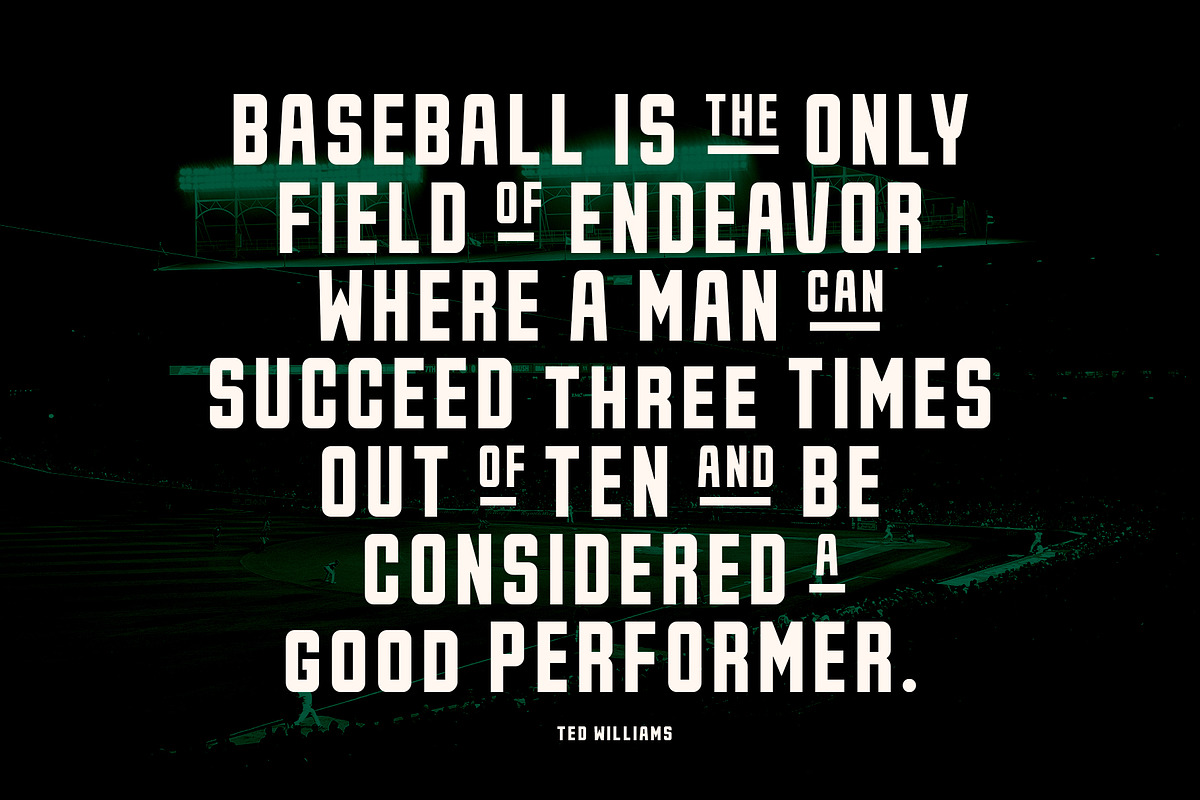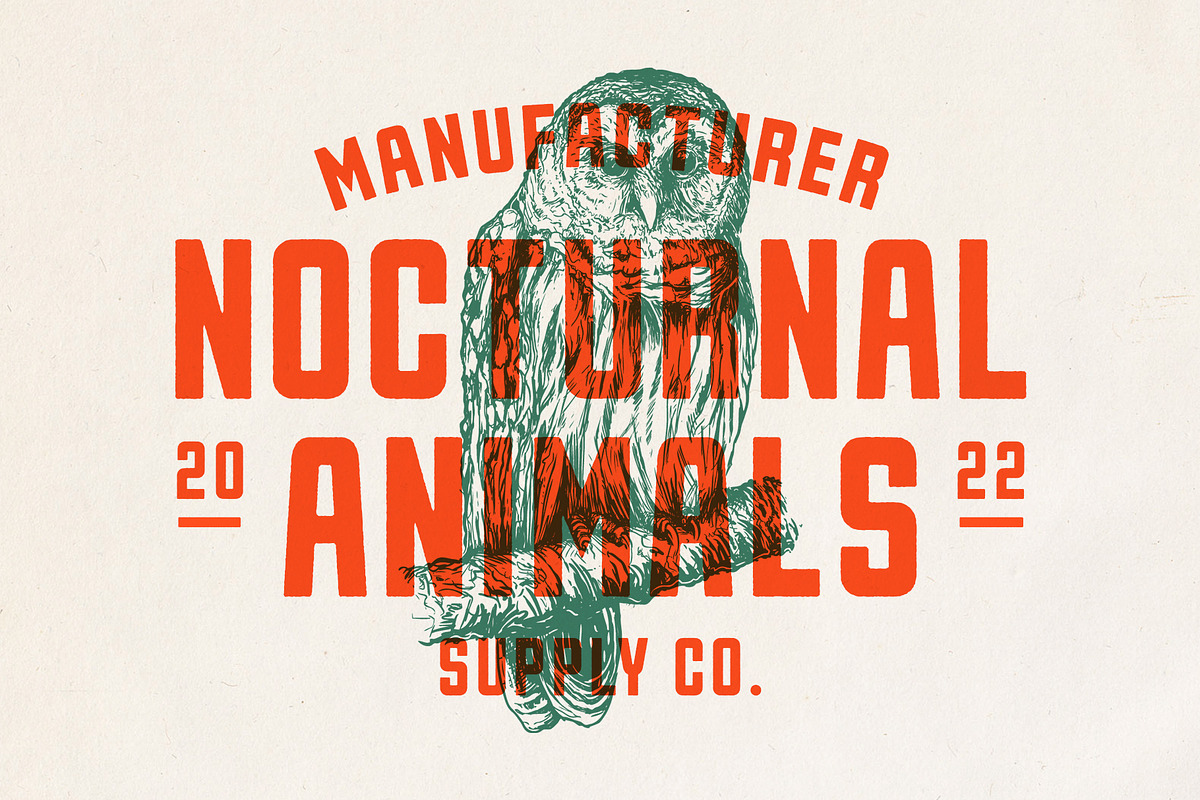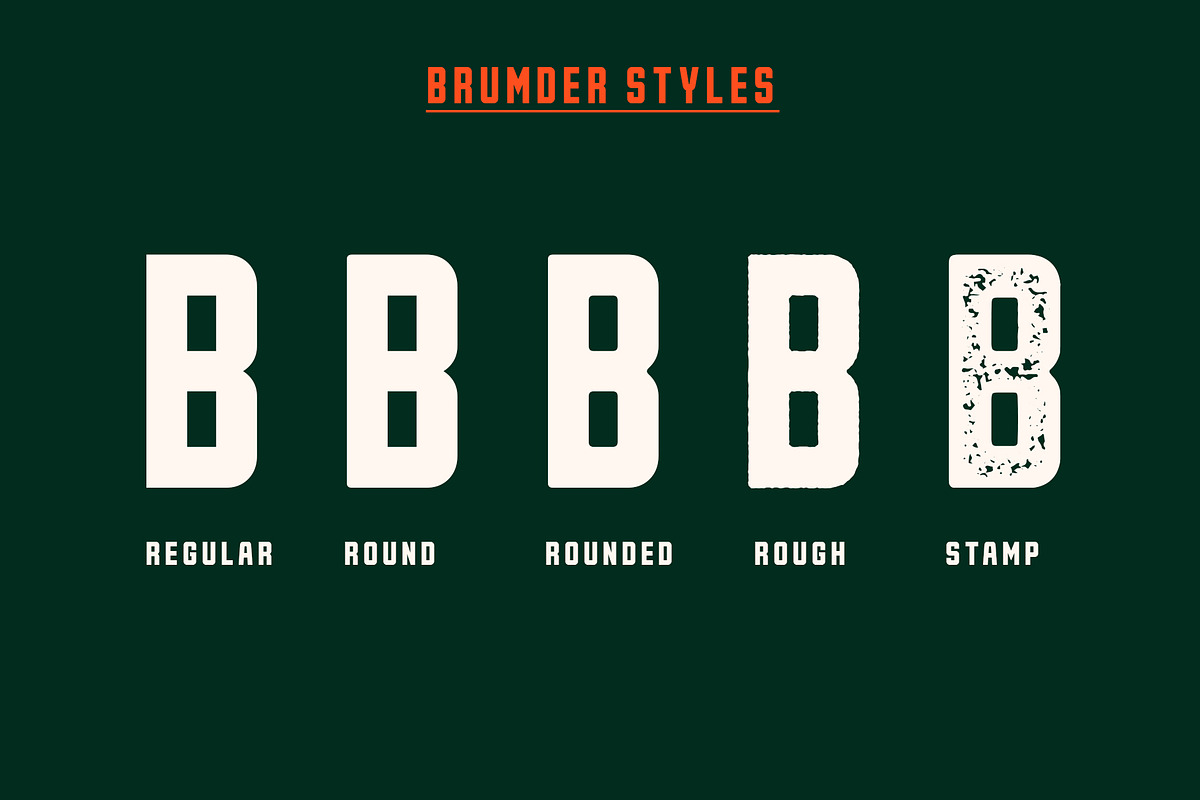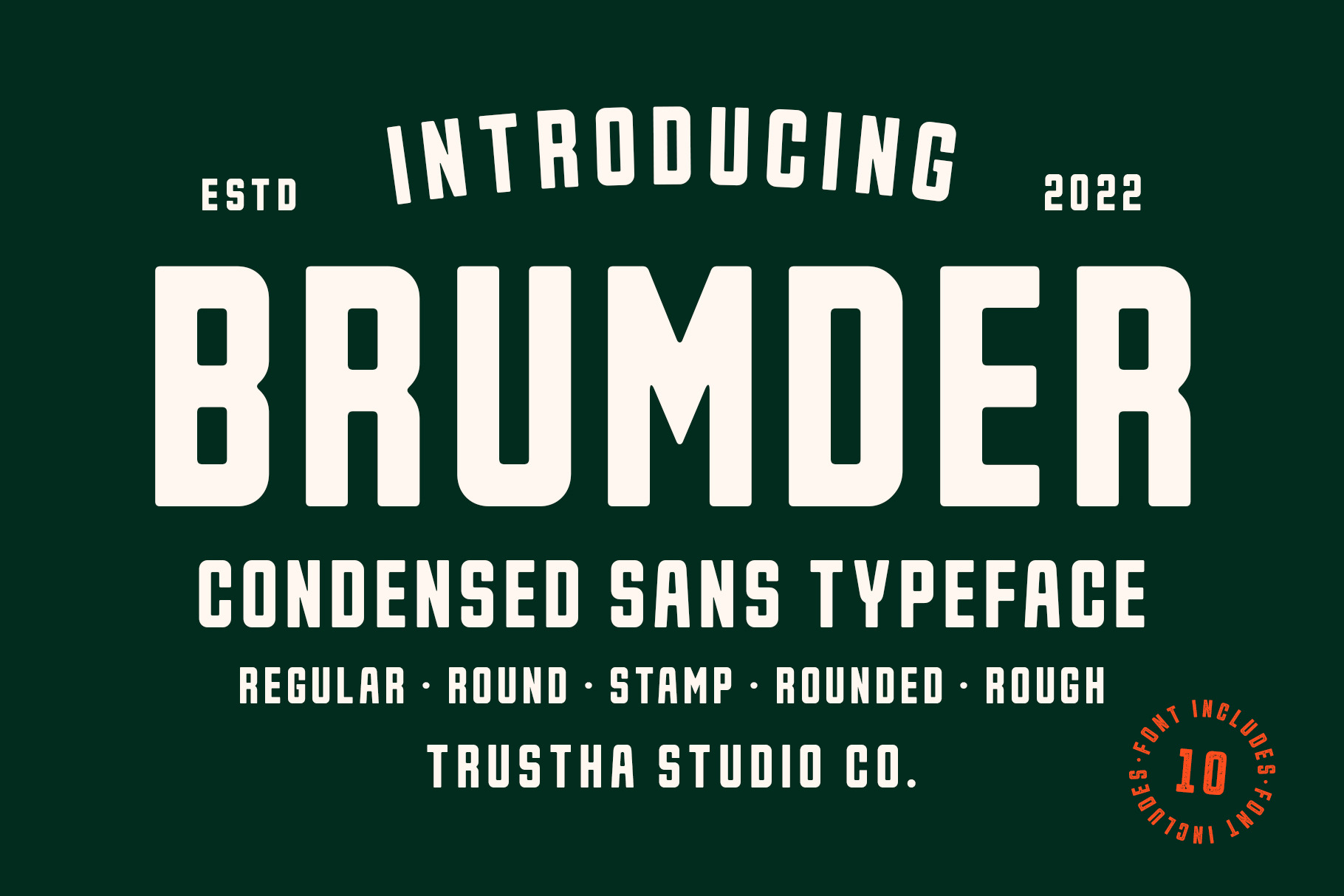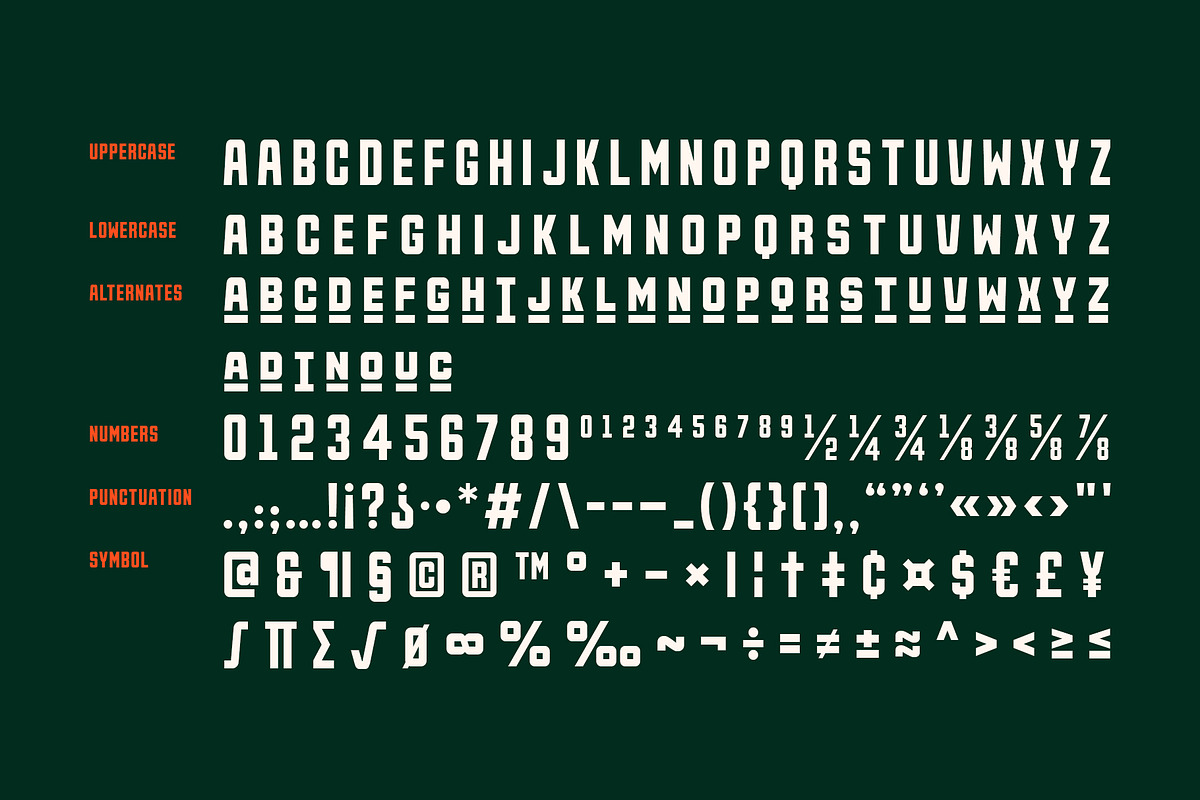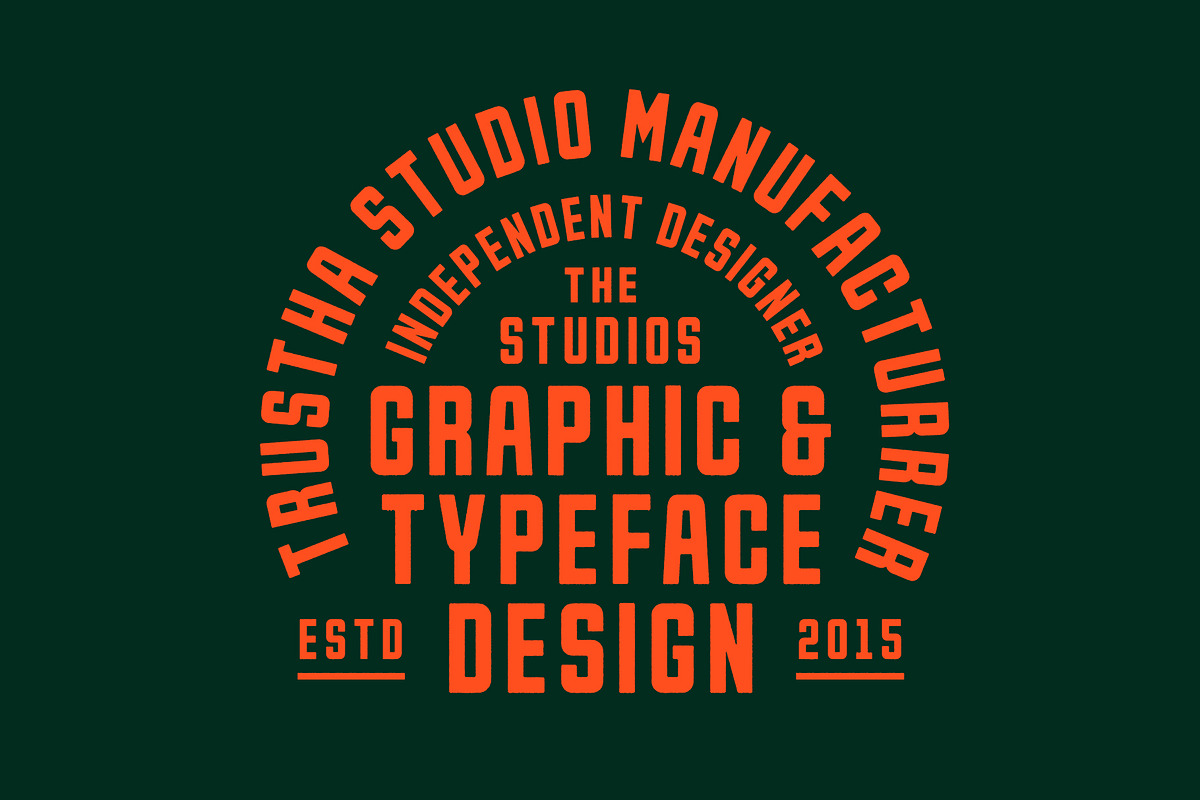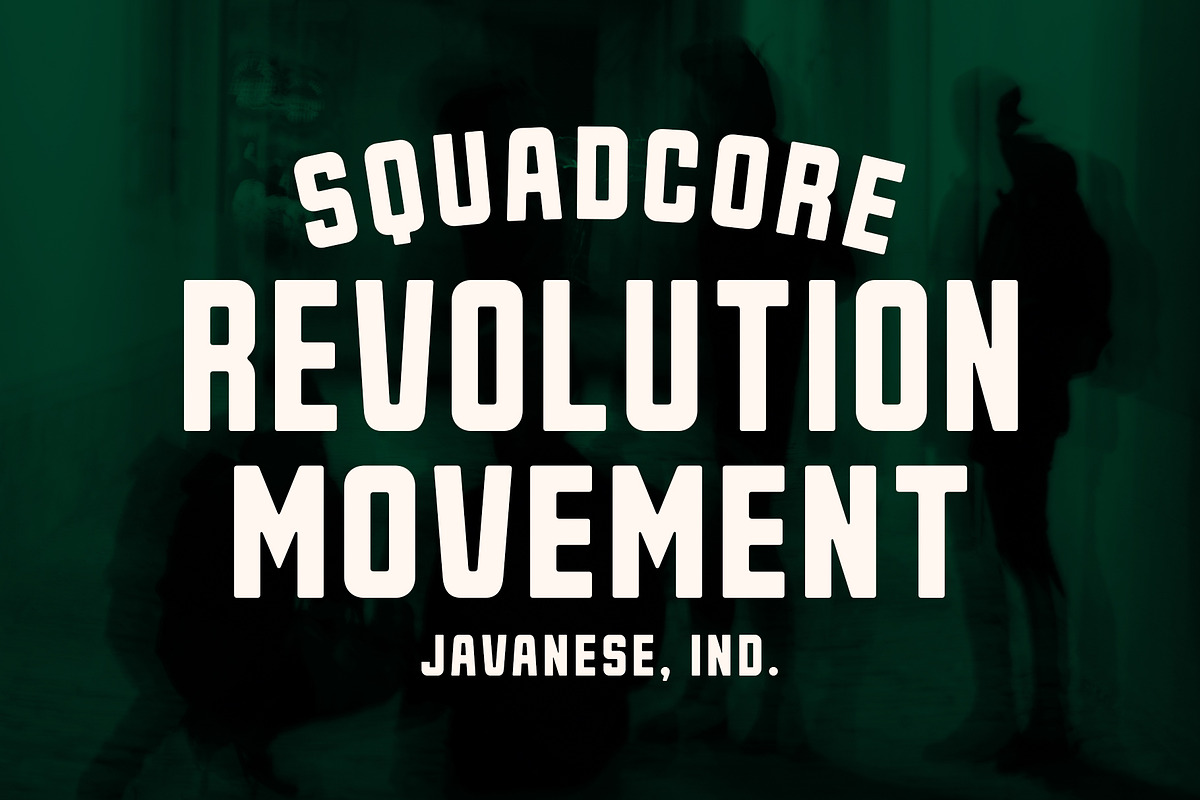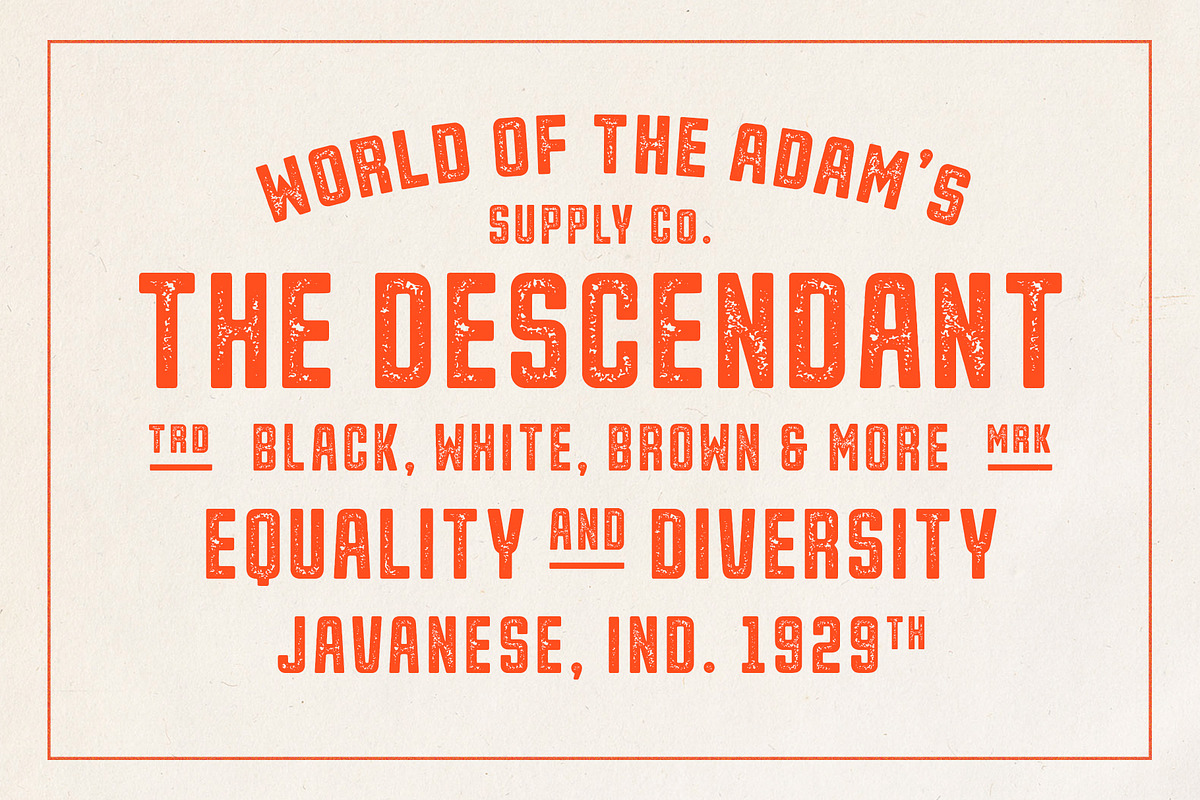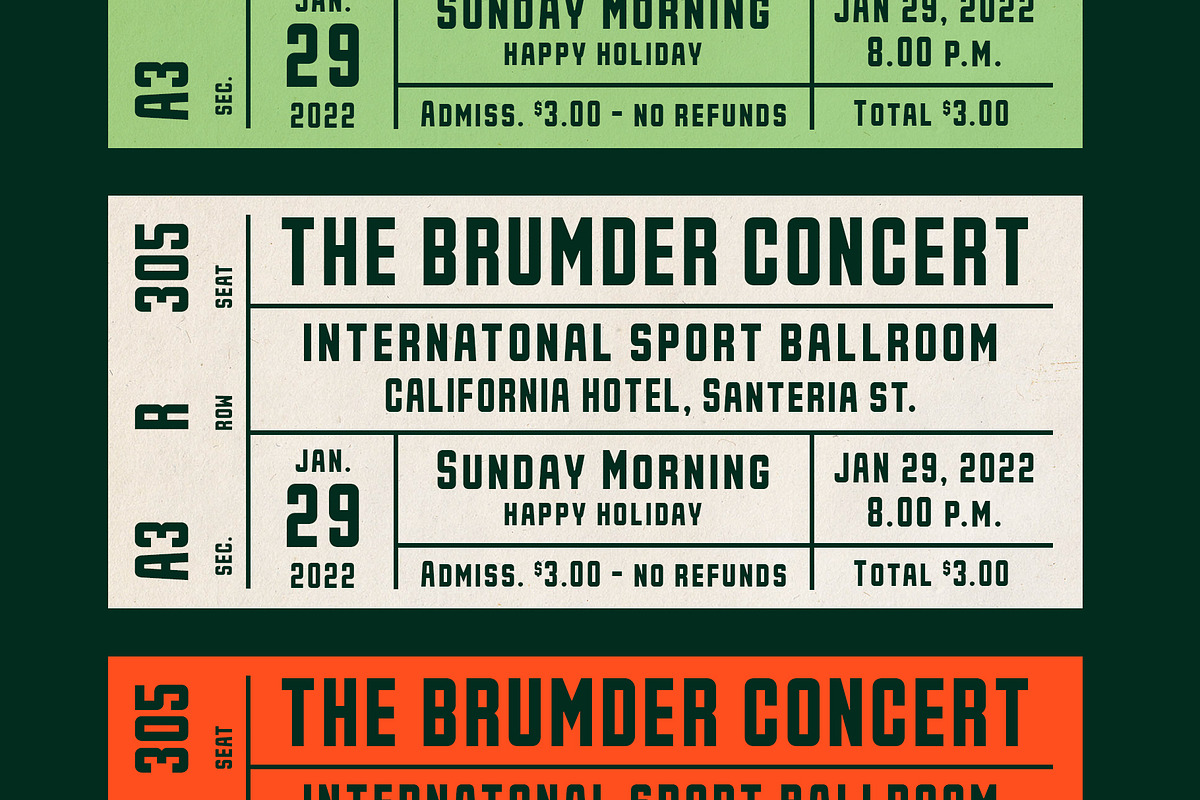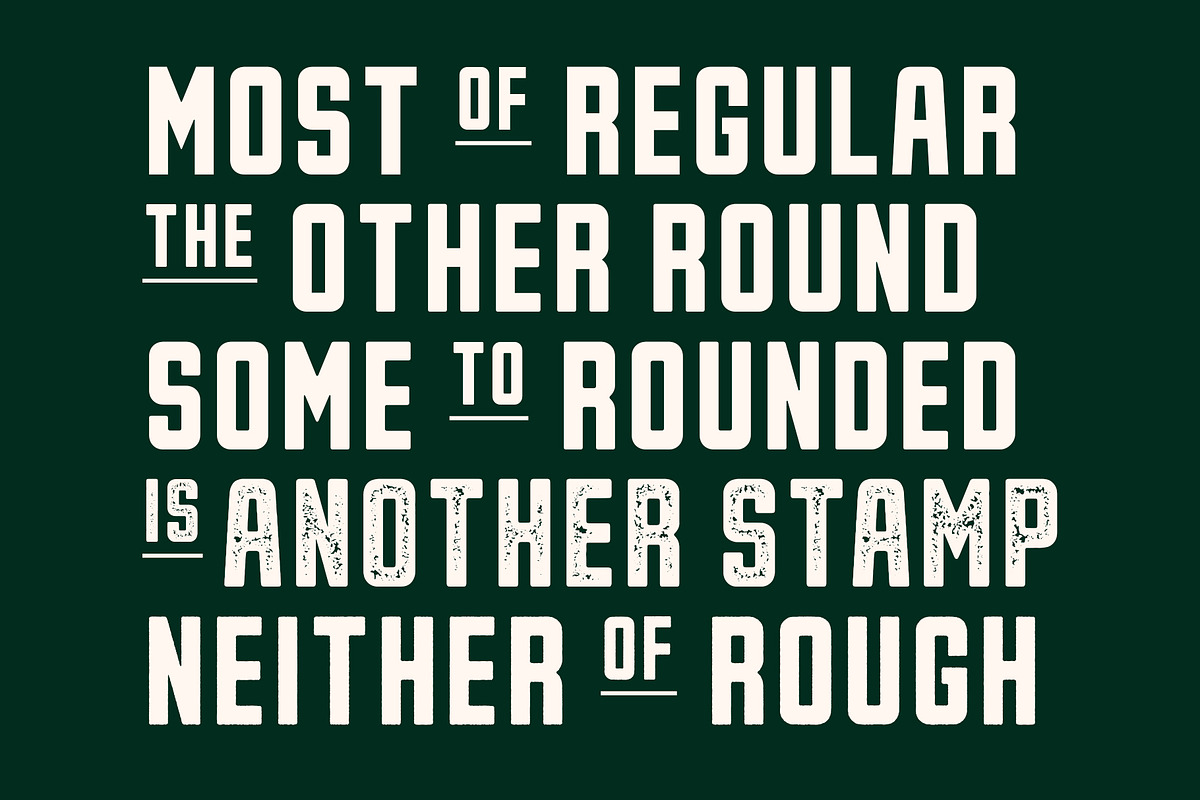
Brumder Font
Brumder is a condensed sans serif typeface. Inspired by Industrial style. Comes in several styles namely regular, round, rounded, rough, and stamp, with matching oblique, making it 10 styles. Brumder is perfect for branding, headlines, and many more.
- Number, punctuation & symbols
- Stylistic Set
- International characters (Multilingual)